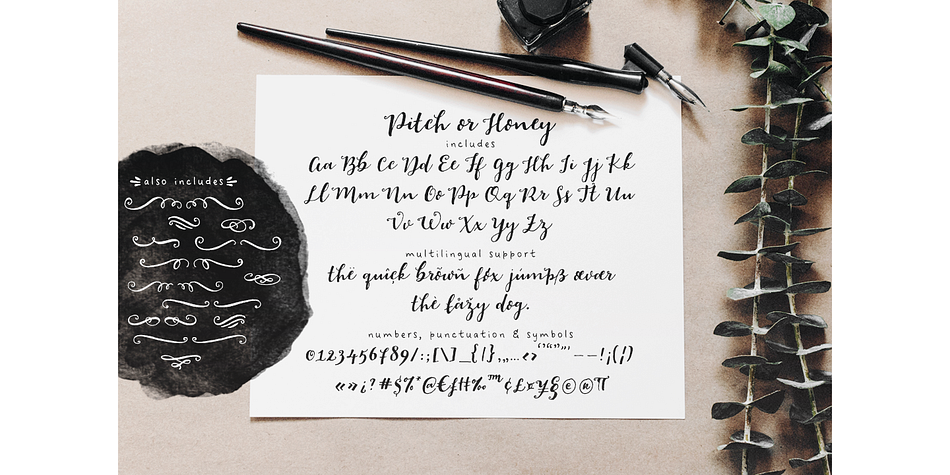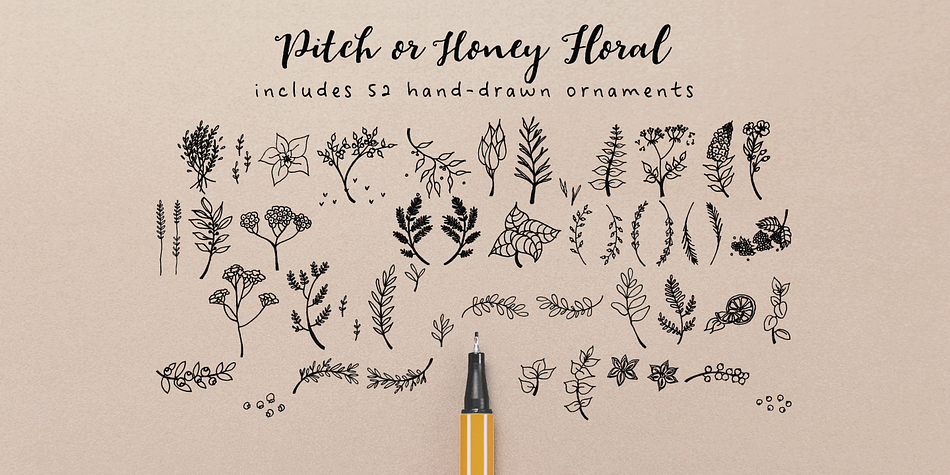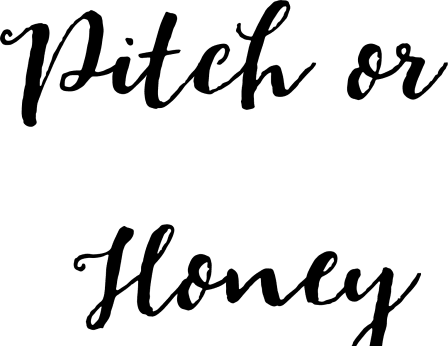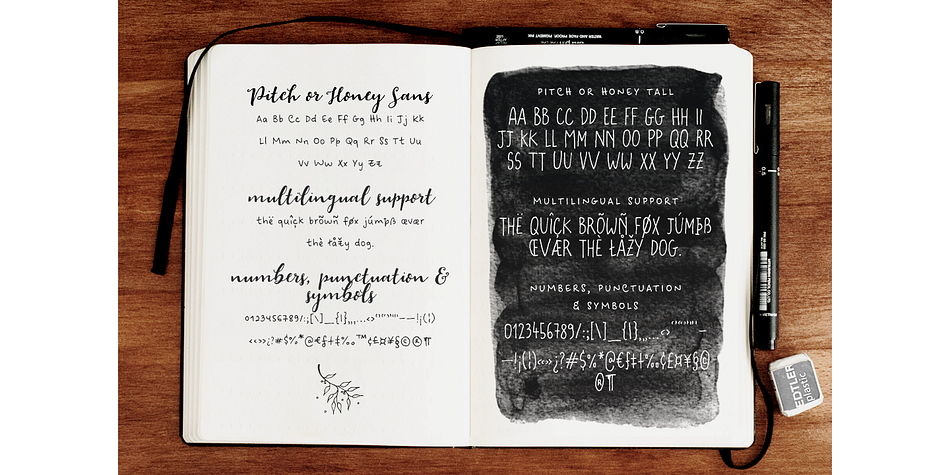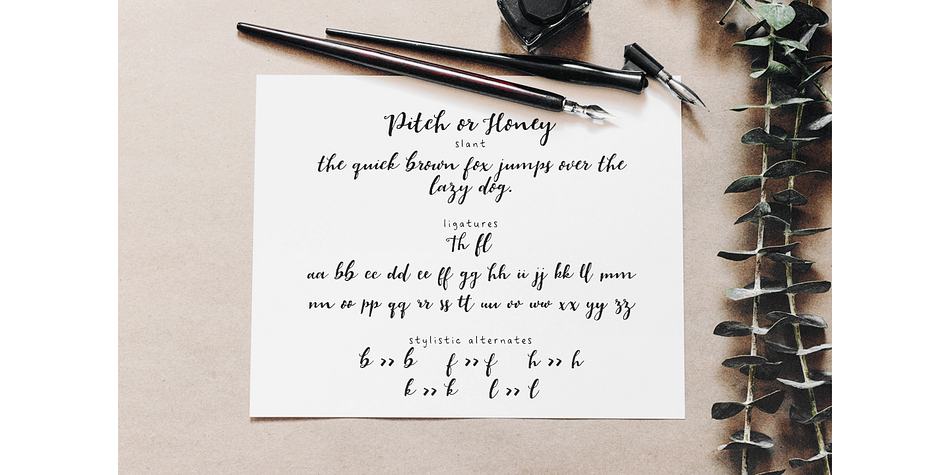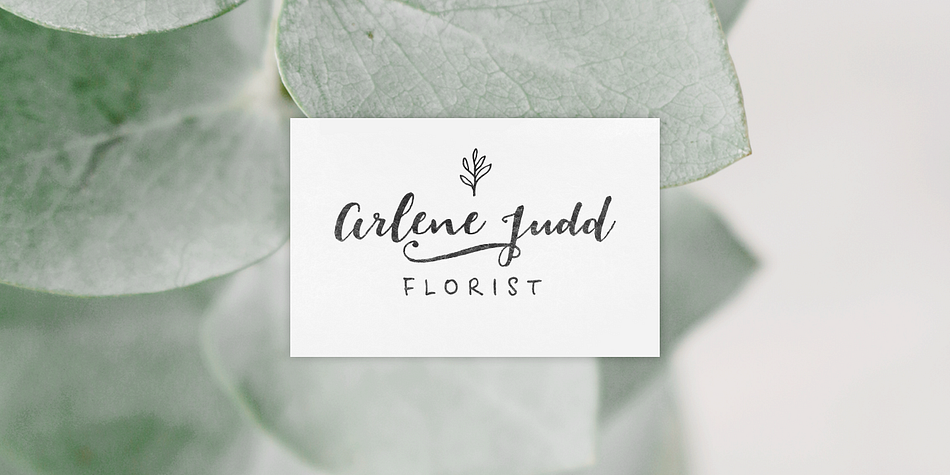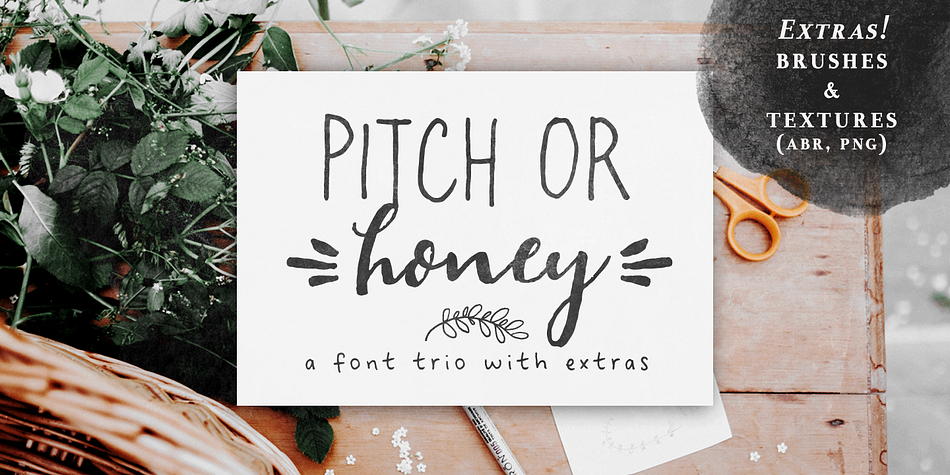
Designed by Ana Parracho, Pitch or Honey is a multiple classification font family. This typeface has seven styles and was published by Ana's Fonts.
Pitch or Honey is a hand-lettered font trio with matching ornaments and floral elements. It includes:
- a faux-calligraphy style script font, with a bonus slant version
- a cute sans serif font, in roughly the same height as the lowercase script
- a tall, all-caps sans serif font, in roughly the same height as the uppercase script
- a set of 52 floral elements, with a bonus filled-in version
- a set of 52 ornamental swashes
All you need for beautiful and easy designs with a hand-lettered, rustic feel, such as postcards and notes, creating logotypes, social media posts, branding and packaging, etc.